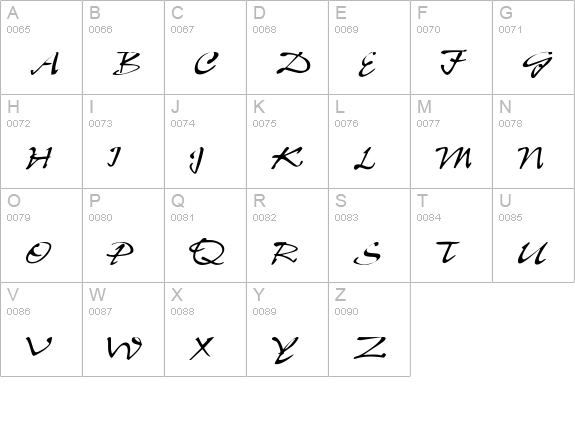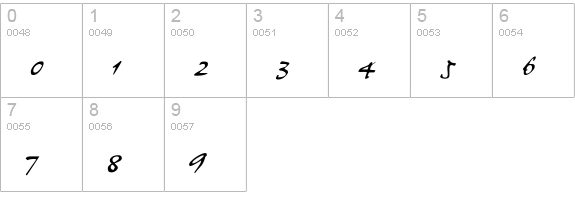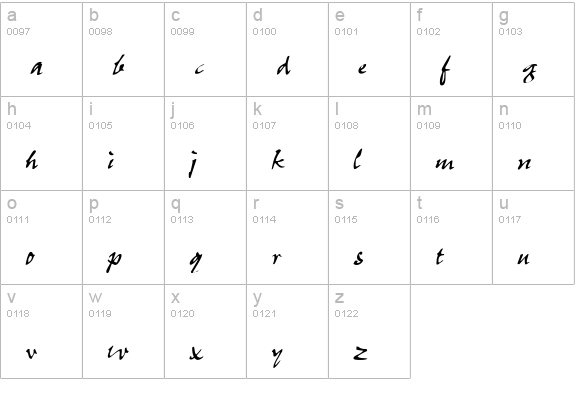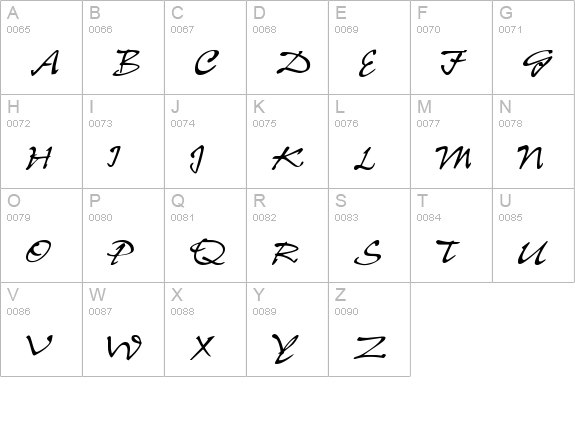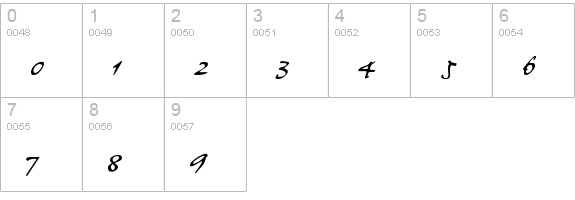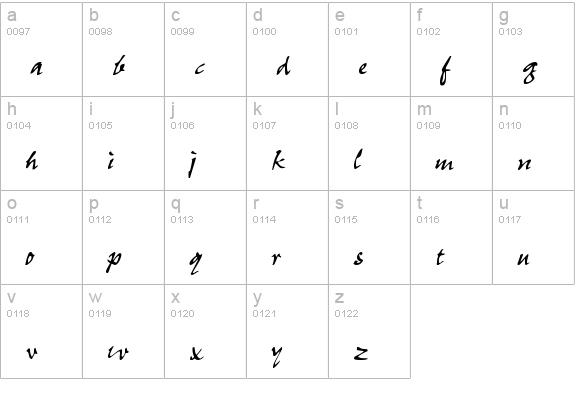
Pepsi Font Details
The Pepsi font is a visually captivating typeface that perfectly embodies the brand's dynamic and energetic spirit. With its bold and sleek design, this font exudes a modern vibe that effortlessly captures attention. Whether it's for branding, advertising, or any creative project, the Pepsi font adds a touch of sophistication and style. What makes this font even more enticing is the fact that it is available for free download at FontsMarket.com. Yes, you read that right! You can easily access and utilize this remarkable font without any cost. FontsMarket.com provides a platform where designers, creatives, and enthusiasts can freely explore and experiment with a wide range of fonts, including the Pepsi font. By offering this font for free, Pepsi showcases its commitment to fostering creativity and accessibility. Now, designers and enthusiasts alike can effortlessly infuse the Pepsi essence into their projects, allowing them to convey the brand's iconic vibe and personality. Whether used in logo designs, advertising campaigns, or even personal projects, the Pepsi font is a versatile tool that enhances the visual impact of any creative venture. So, what are you waiting for? Explore the vast collection of fonts at FontsMarket.com, and freely download the Pepsi font to add a touch of brilliance to your designs. Unleash your creativity and let the Pepsi font take your projects to new heights.